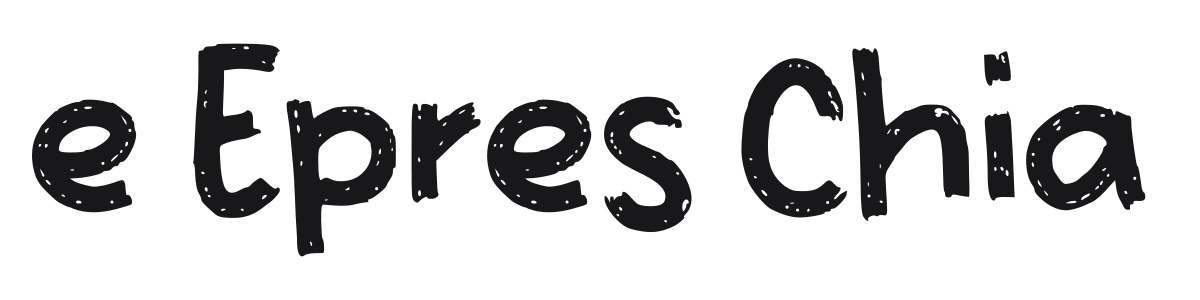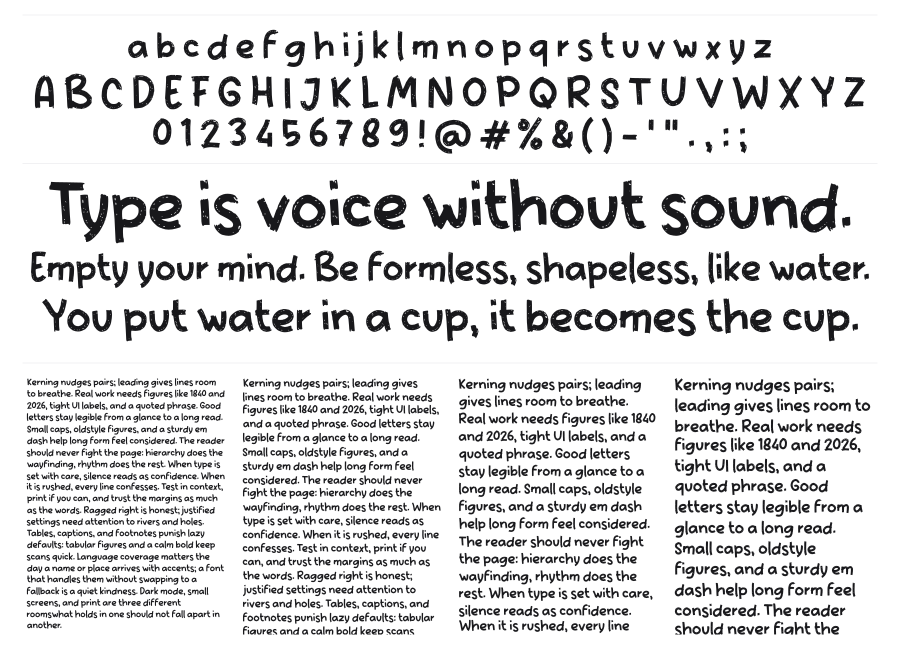
e Epres Chia
Epres Chia is a bold, casual hand-drawn font with a rough, marker-pen texture and friendly rounded forms. The slightly irregular edges and organic stroke variation give it genuine handmade warmth without feeling sloppy. It works well at large sizes for branding, packaging, or anything that needs a relaxed, human touch.